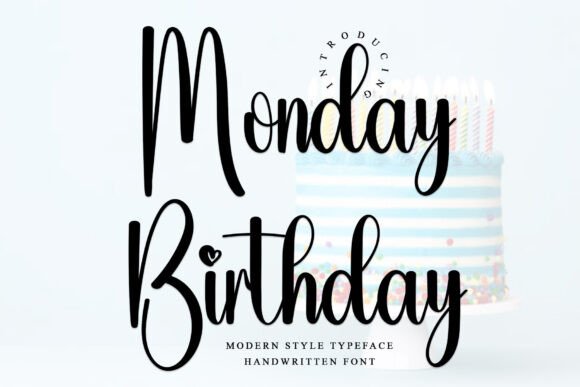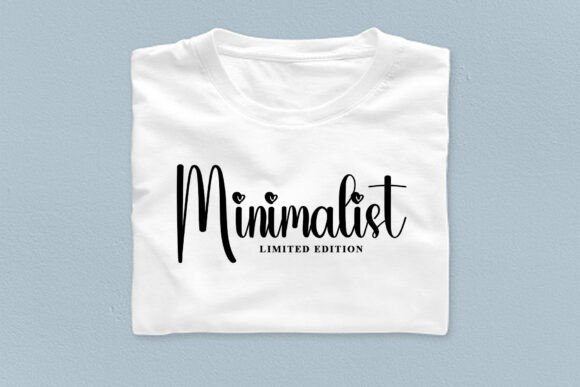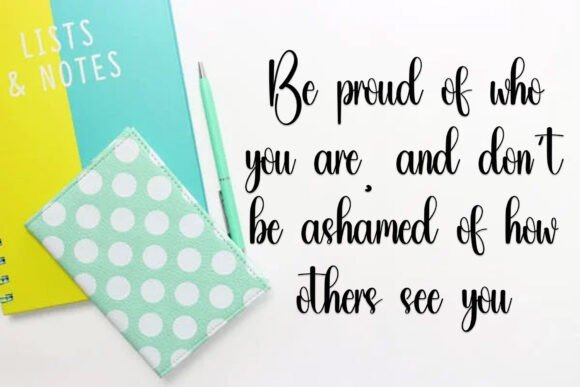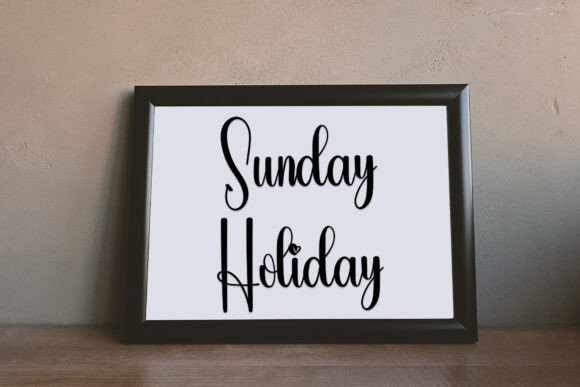
Monday Birthday Font
About the Monday Birthday Font
Elevate your designs with Monday Birthday Font, a font that combines sophistication with readability. Monday Birthday is a magical script font carefully created with a touch of elegance. Whether you’re looking for fonts for Instagram or calligraphy scripts for DIY projects, this font will turn any creative idea into a true piece of art!
Monday Birthday’s elegant yet playful style makes it ideal for headlines, short text blocks on invitations or greeting cards, and logos requiring a touch of whimsical sophistication. It excels in branding for boutiques, artisan businesses, or events with a celebratory feel. However, its delicate nature makes it unsuitable for body text or UI elements where readability is paramount. Long paragraphs set in this font would be difficult to read.
Pairing Monday Birthday with a clean sans-serif like Lato for body copy or a geometric sans-serif like Montserrat for supporting text creates a balanced and sophisticated design. For a more playful approach, consider pairing it with a rounded, friendly sans-serif. Alternatively, a classic serif font like Garamond can add a touch of refined contrast.
The font’s overall personality is best described as elegant yet playful, making it a strong choice for projects requiring a balance of sophistication and charm. Its stylish flourish lends itself particularly well to projects needing a touch of vintage flair or handwritten aesthetic without being overly informal.
Monday Birthday Font Usage Examples
Monday Birthday Font Example